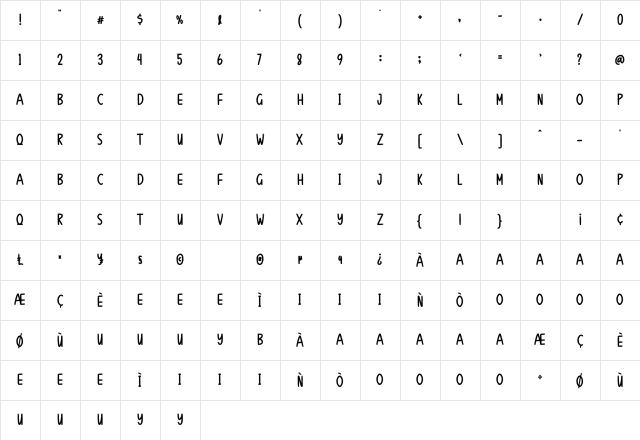
Dreadful Regular
Design Context for Dreadful
Dreadful is a composed and adaptable typeface that performs quietly and consistently across a wide range of design contexts.